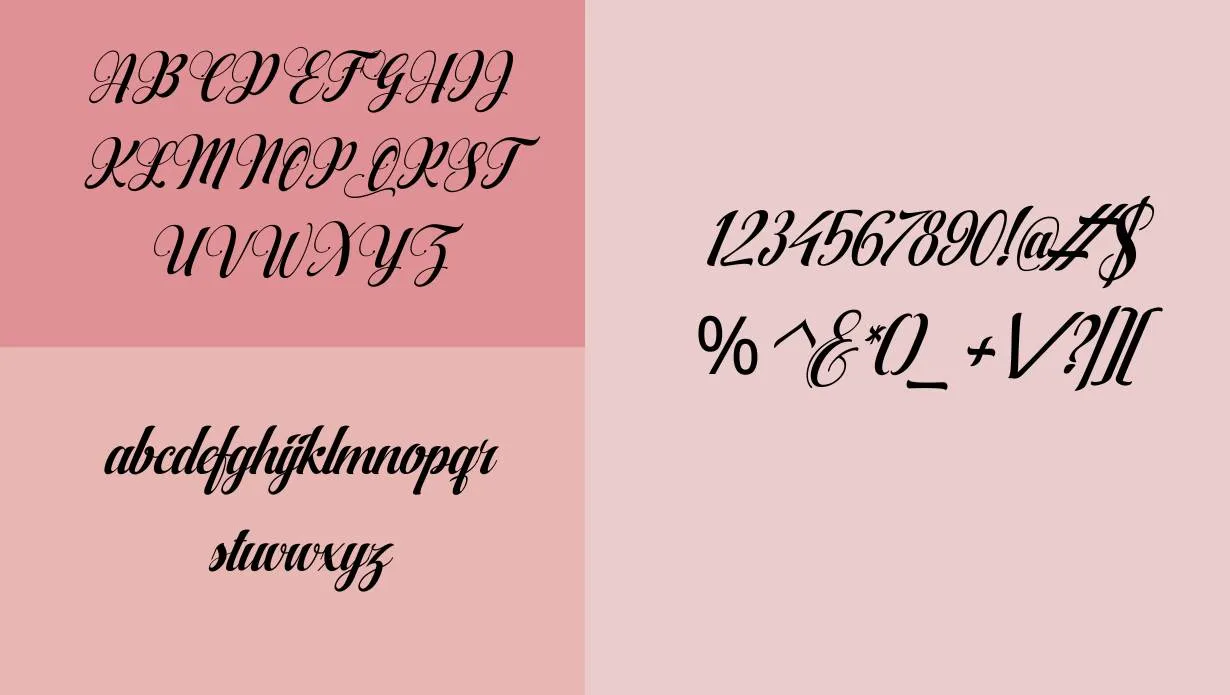
The Aqualita font brings a sense of tranquility and elegance to your words, making it suitable for projects that aim to create a calm and soothing atmosphere. Imagine using it for spa advertisements, wellness materials, or anything related to serenity.
The flowing lines of the Aqualita font mimic the gentle movements of water, giving your words a soft and graceful touch.